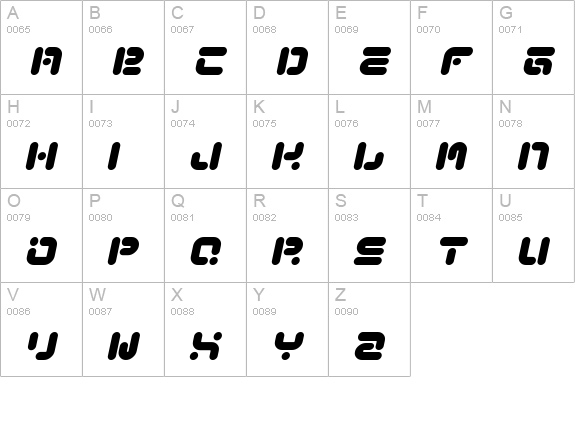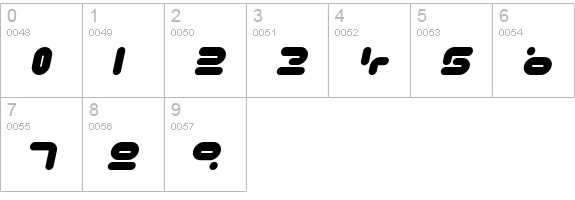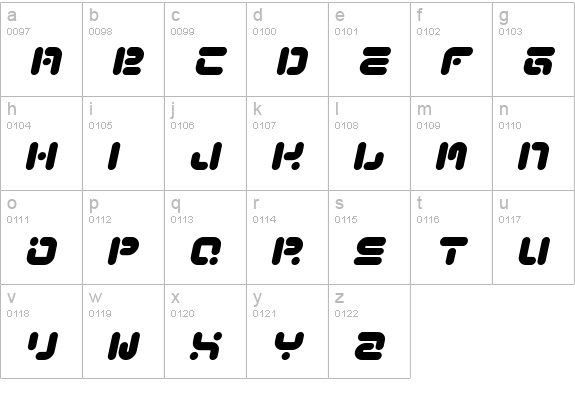
Funky Knut font is a playful and unique typeface that brings a touch of fun and creativity to your designs. With its quirky and irregular shapes, this font is perfect for adding a funky and fresh vibe to any project. Whether you're working on a poster, logo, or social media graphic, Funky Knut will definitely make your text stand out. The best part? Funky Knut font is completely free to download at FontsMarket.com. You can easily access this eye-catching font and start using it in your designs right away. Don't miss out on the opportunity to add a touch of whimsy and personality to your projects with Funky Knut font – get it now for free!